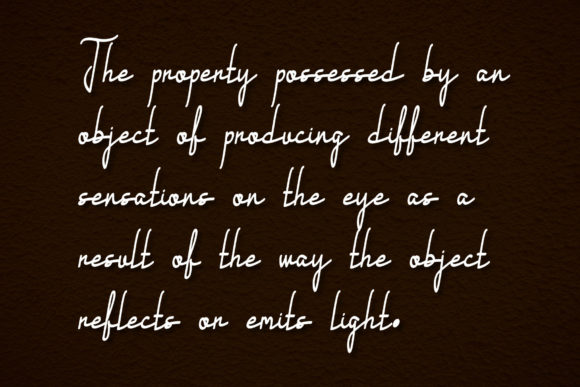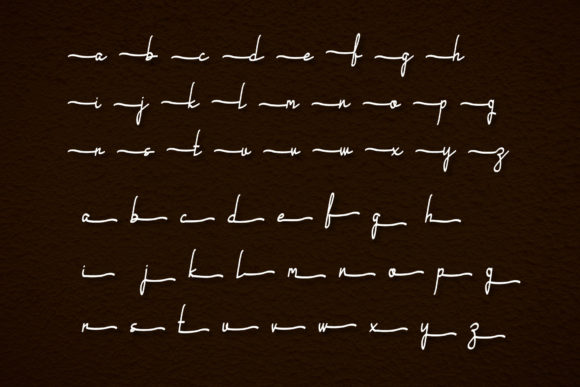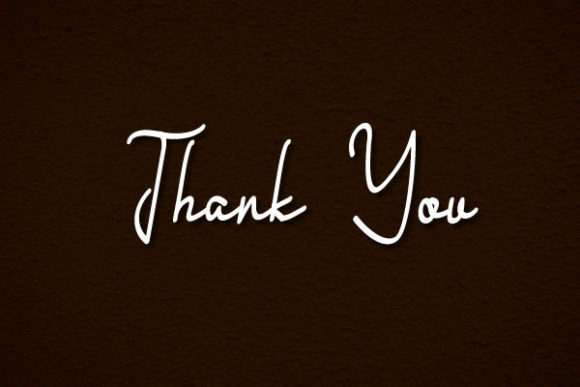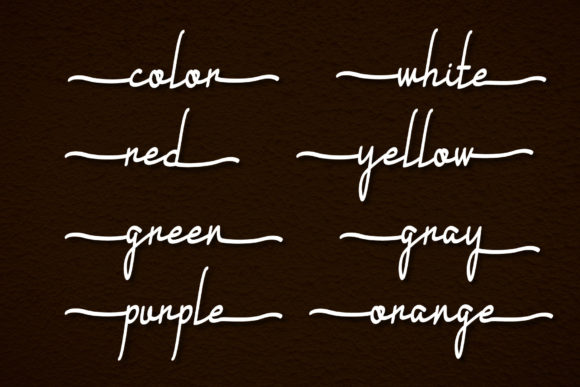
About Brown Font
Brown is a stylish and fashionable script font that exudes elegance and attention to detail. With its carefully crafted letterforms and intricate details, this font adds a touch of sophistication to any design project.
The refined and neat appearance of Brown makes it a versatile choice for various topics and applications. Whether you’re working on branding, logos, invitations, stationery, or any other creative project, this font has the potential to enhance your designs and make them stand out.
One of the notable features of Brown is its PUA encoding, which allows easy access to all the glyphs and swashes. This means that you have the freedom to explore and customize the font to suit your specific design needs. The extensive range of alternates and swashes gives you the flexibility to create unique and personalized typography.
Brown’s legibility and clarity ensure that your message is conveyed effectively, even in smaller sizes or complex layouts. The clean and detailed letterforms make it suitable for both headline and body text, providing consistency and cohesiveness in your designs.
Whether you’re working on a fashion-related project, a modern branding concept, or simply want to add a touch of sophistication to your designs, Brown is an excellent choice. Its fashionable and finely crafted style adds a sense of professionalism and elegance to your creations, elevating them to the next level.
In summary, Brown is a fashionable and neatly crafted script font that enhances any design project. With its attention to detail, PUA encoding, and versatility, it offers a wide range of possibilities for logos, branding, invitations, stationery, and more. Whether you’re aiming for a refined or modern look, Brown is a font that will bring sophistication and elegance to your designs.